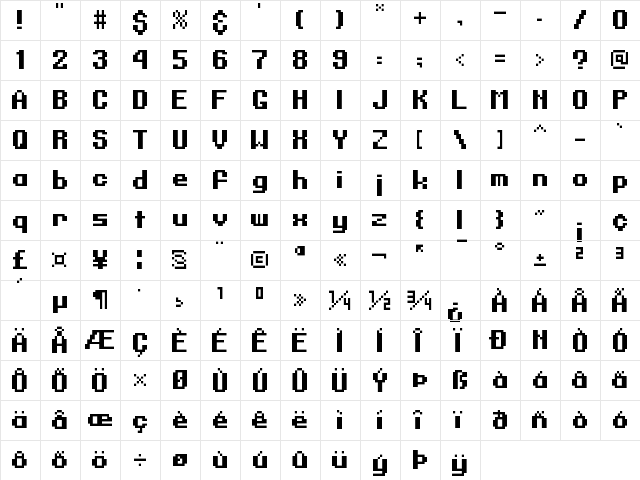
Digits Regular
Design Context for Digits Typeface
Digits has a distinctly futuristic character, with geometric precision and clean angles that feel at home in technology, gaming, and sci-fi contexts.